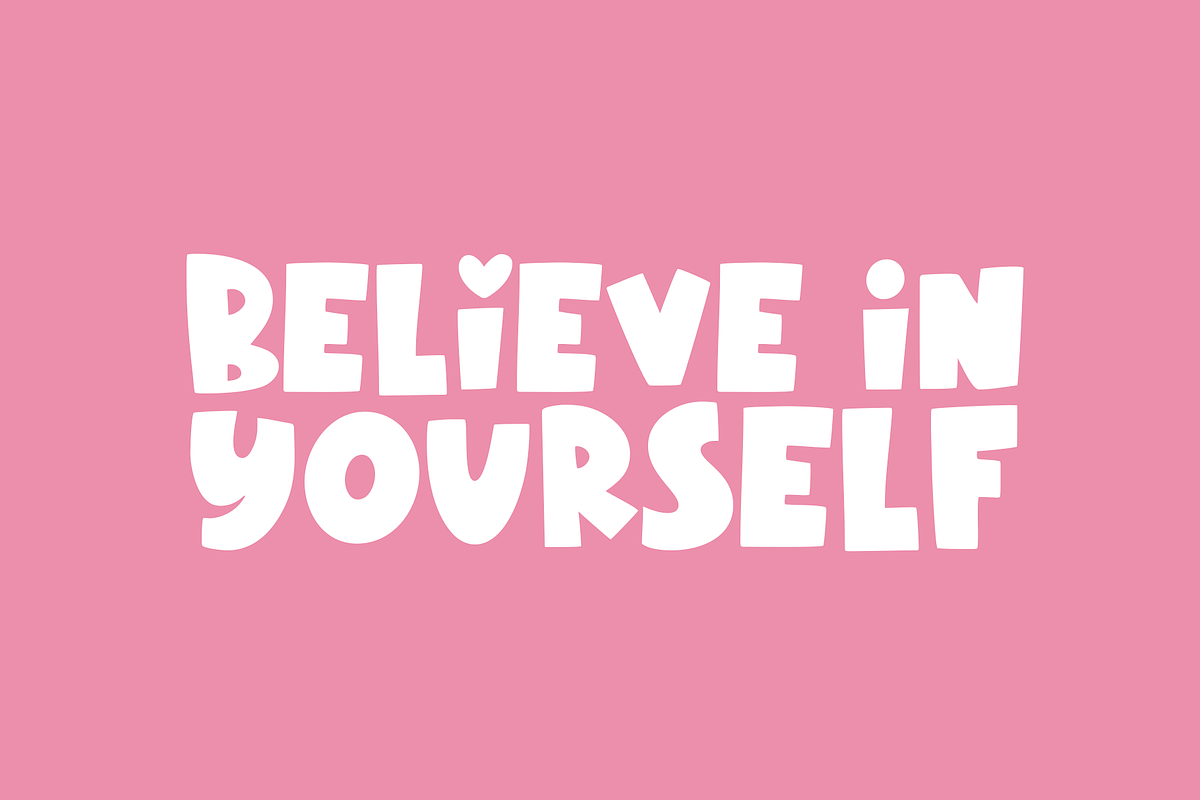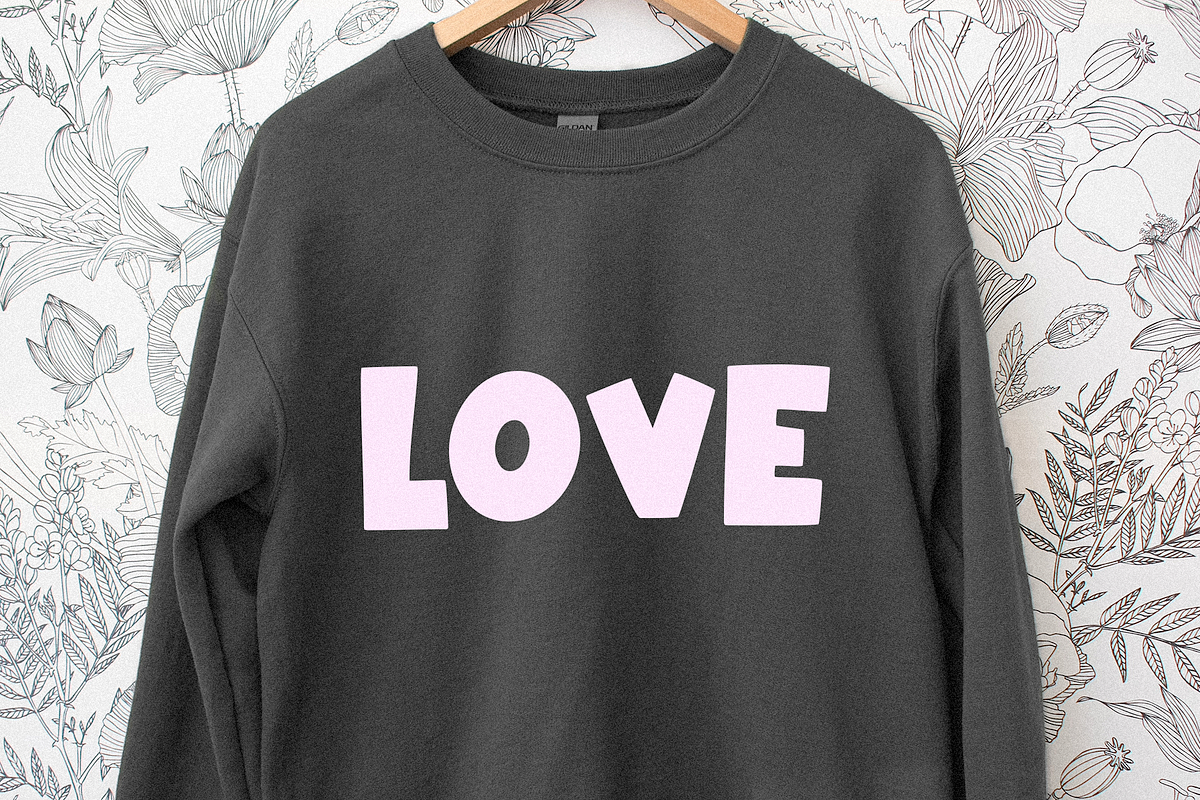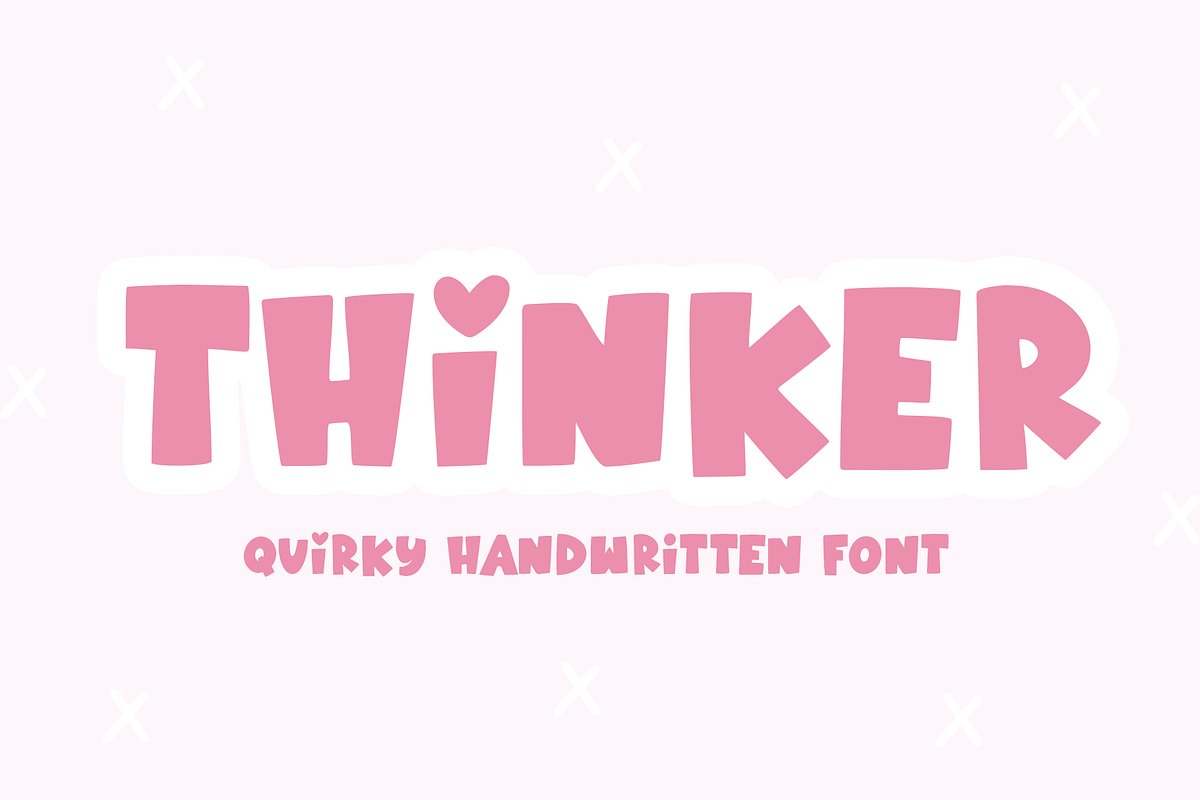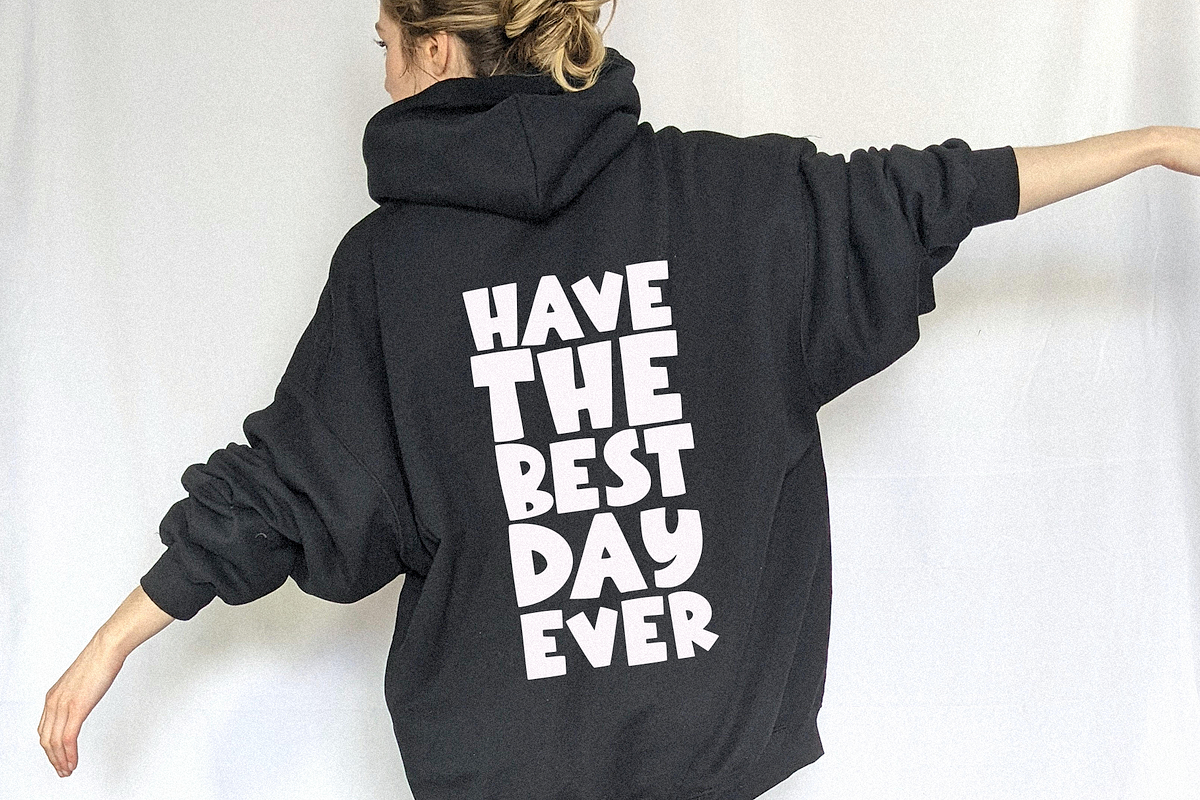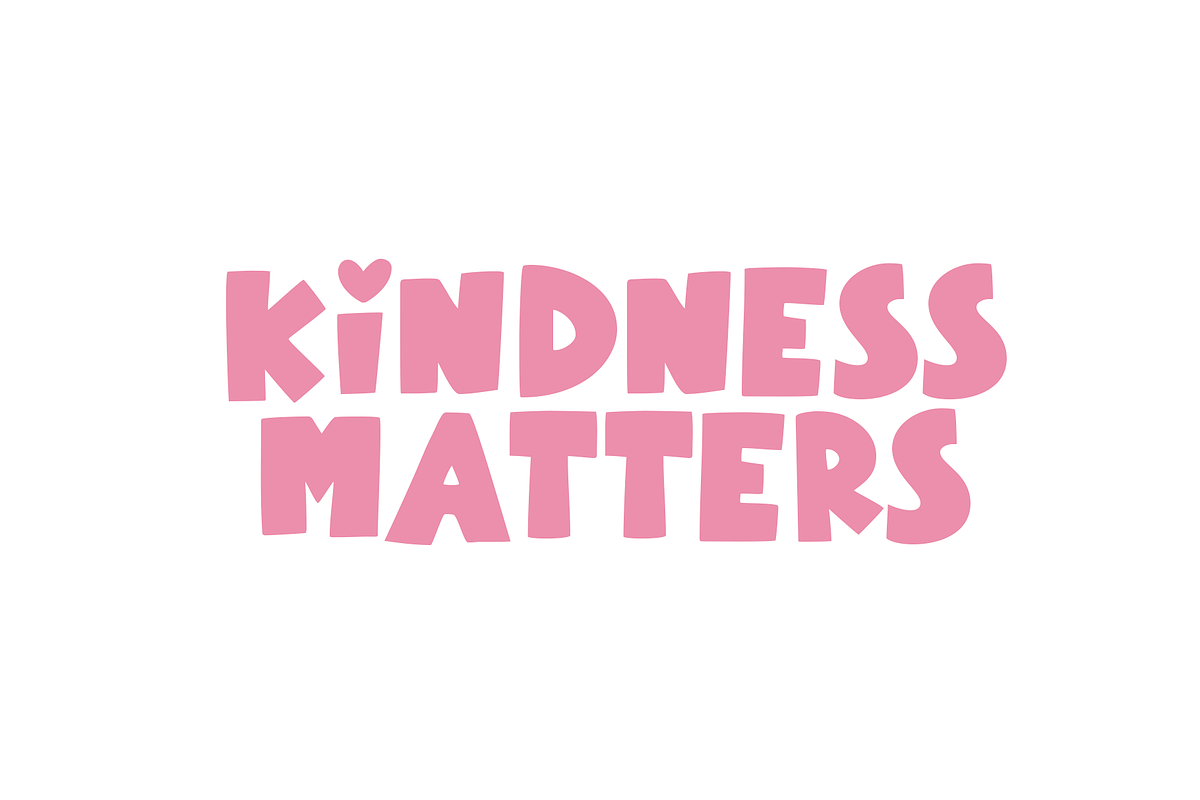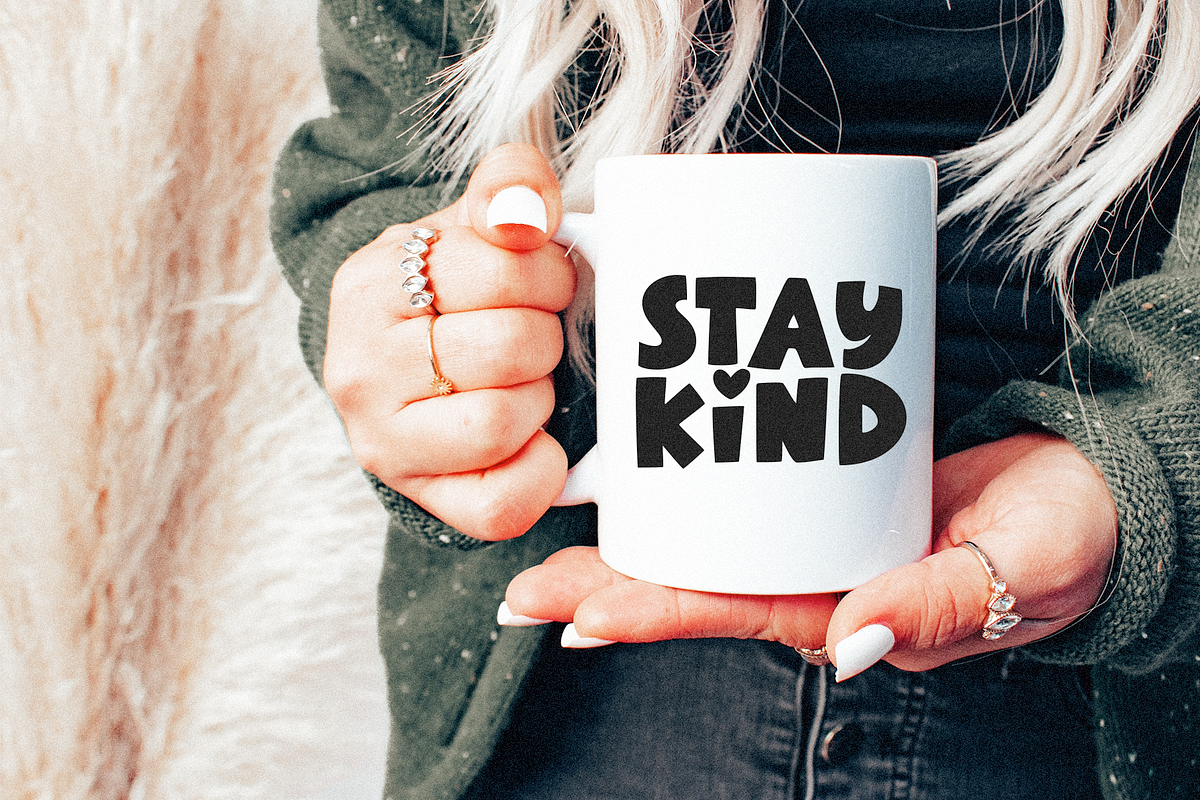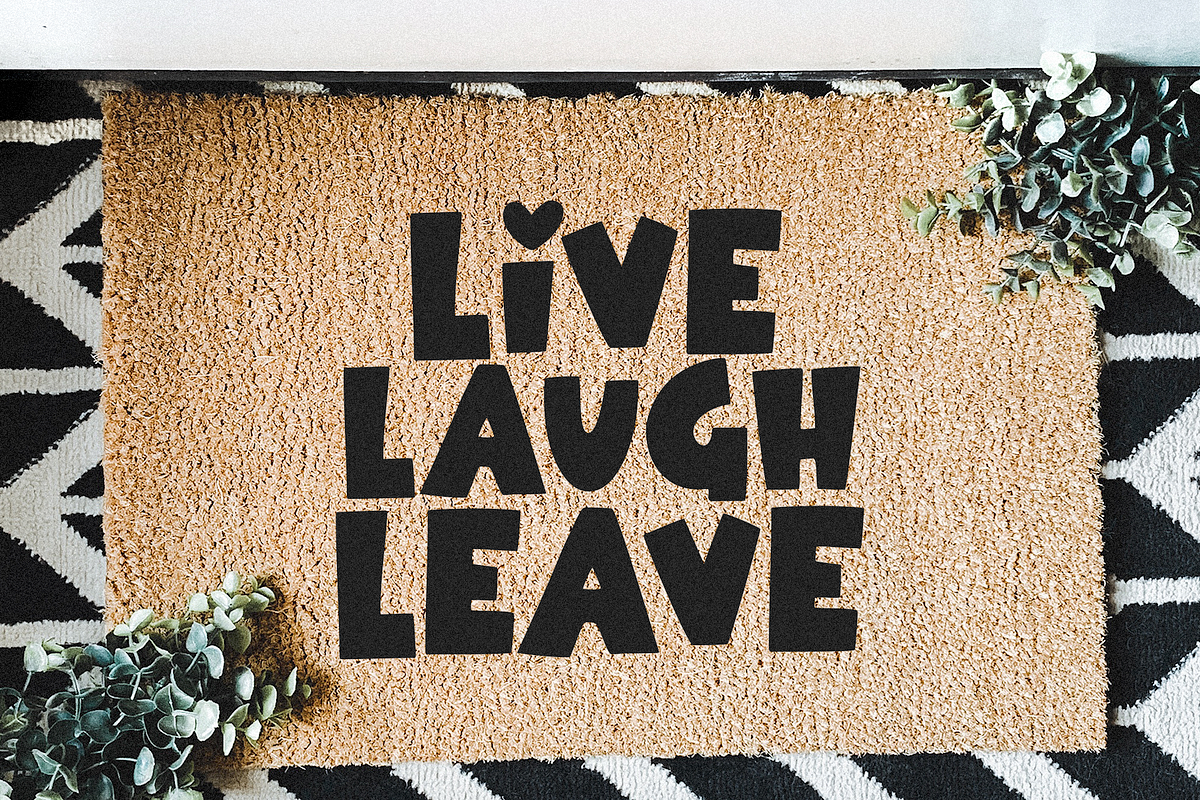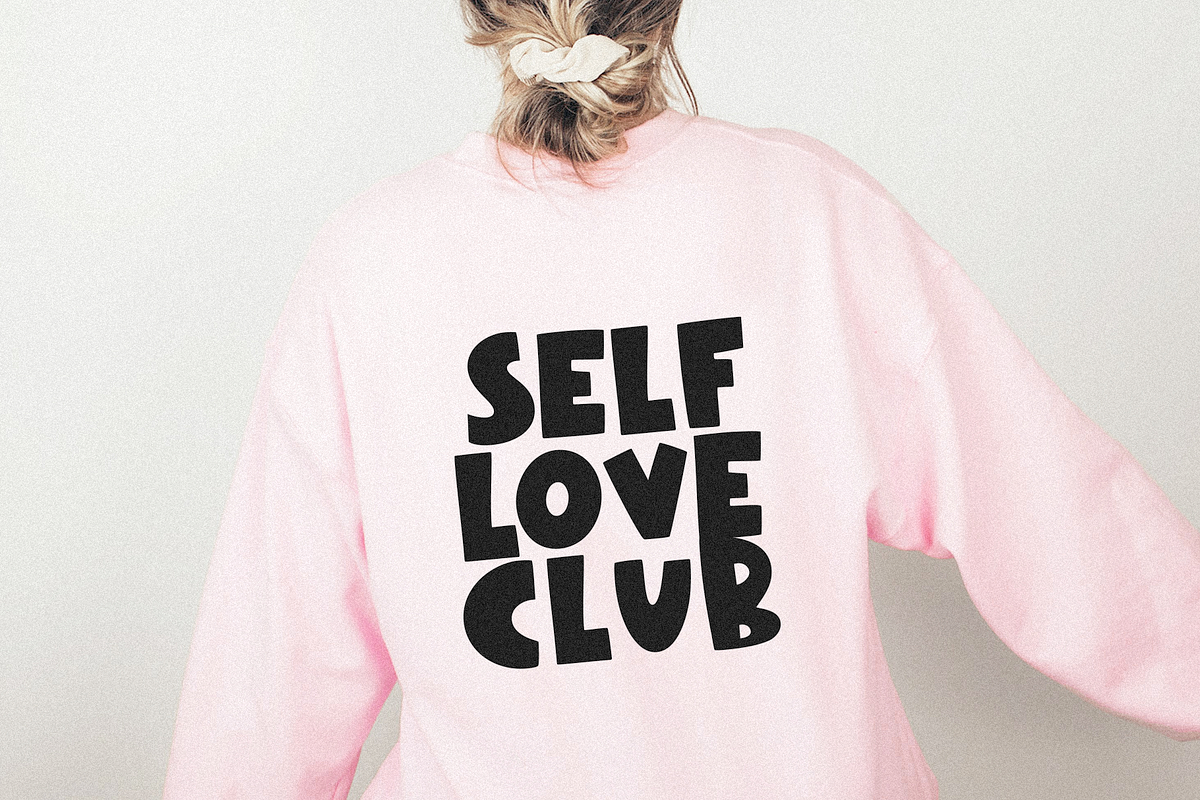
Thinker | Bubbly Handwritten Font
Thinker is a handwritten font with big, quirky letters. It is an ALL CAPS font.
This font is perfect for quotes, headings, blogs, logos, invitations and more!